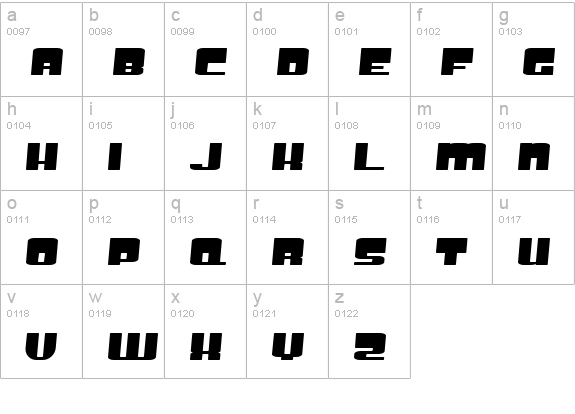
Groove Machine Expanded is a distinctive, extended-width variant in the Groove typeface family \xE2\x80\x94 well suited to design and typography projects.
Groove Machine Expanded font is a bold and dynamic typeface that exudes energy and rhythm. Its thick strokes and sharp angles give it a modern and edgy look, perfect for making a statement in your designs. This font is versatile and can be used for various purposes such as headlines, logos, posters, and more. What sets Groove Machine Expanded font apart is its unique character and ability to stand out from the crowd. It commands attention and adds a touch of excitement to any project it is used in. Whether you are designing a music festival poster or creating a bold branding campaign, this font will surely make an impact. The best part about Groove Machine Expanded font is that it is completely free to download at FontsMarket.com. You can easily access this font and use it in your projects without any cost. So why wait? Add a touch of groove and style to your designs with Groove Machine Expanded font today!